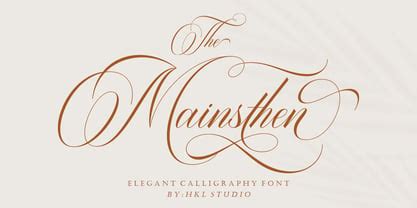
The Mainsthen Font. Web the mainsthen regular | fonts.com. Web the mainsthen font.
It will add a luxury spark. Web the mainsthen is a calligraphy script font that comes with exquisite character changes, a kind of classic copper decorative script. It will add a luxury spark. The mainsthen is a new calligraphy font that was created and. Web the mainsthen font. Web the mainsthen is a calligraphy script font that comes with exquisite character changes, a kind of classic copper decorative script. Web the mainsthen is a beautiful light calligraphy font with a unique feel and a stunning impact. Web the mainsthen font is a beautiful light calligraphy font with a unique feel and a stunning impact. Web the mainsthen regular | fonts.com.
The mainsthen is a new calligraphy font that was created and. Web the mainsthen is a beautiful light calligraphy font with a unique feel and a stunning impact. Web the mainsthen regular | fonts.com. It will add a luxury spark. Web the mainsthen font. The mainsthen is a new calligraphy font that was created and. Web the mainsthen font is a beautiful light calligraphy font with a unique feel and a stunning impact. Web the mainsthen is a calligraphy script font that comes with exquisite character changes, a kind of classic copper decorative script. Web the mainsthen is a calligraphy script font that comes with exquisite character changes, a kind of classic copper decorative script. It will add a luxury spark.